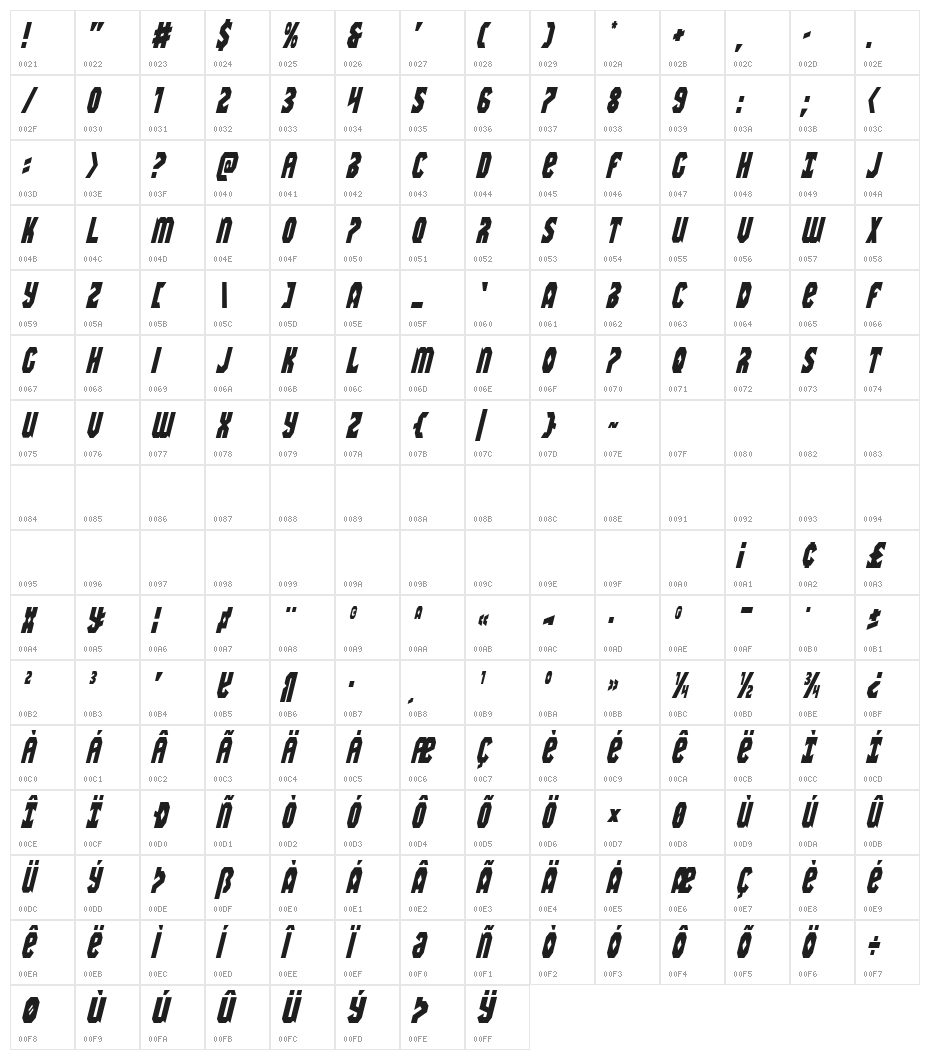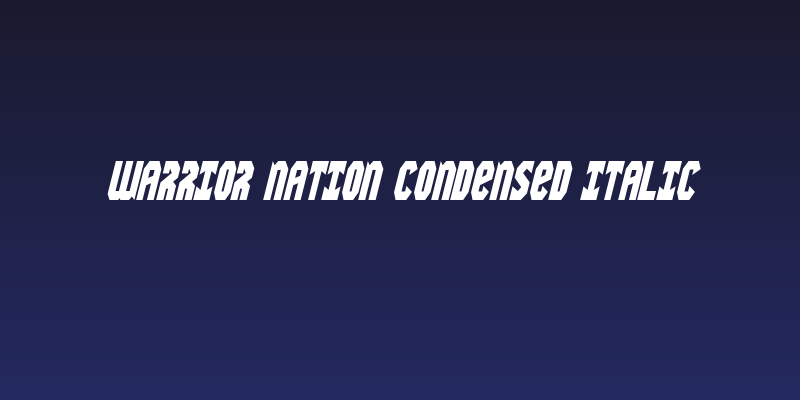
Warrior Nation Condensed Italic Font
Warrior Nation Condensed Italic Description
This font features a bold and dynamic style with a condensed and italicized form. The characters are sharply angled, giving a sense of motion and energy. The uppercase and lowercase letters maintain a consistent height, enhancing the compact appearance. Numbers and special characters follow the same angular design, ensuring uniformity across all elements. The thick strokes and tight spacing contribute to a powerful visual impact, making it suitable for attention-grabbing designs.
| Proposed Projects | Ideal for sports branding, action-themed posters, dynamic logos, and video game titles. |